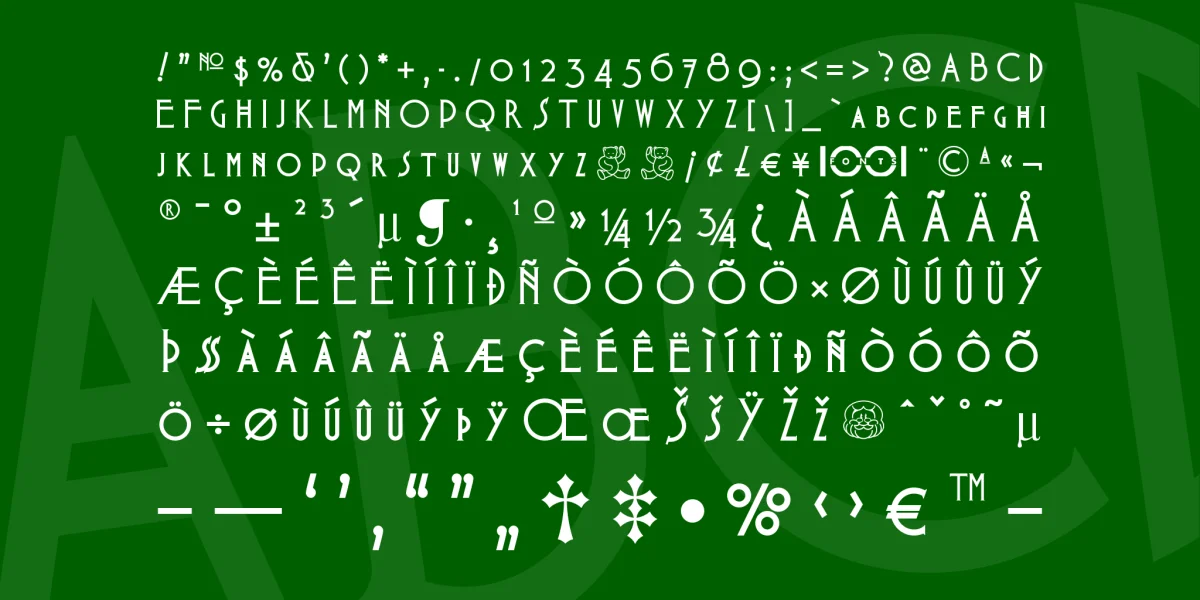
Handlettering on a piece of sheet music from 1903 was the inspiration for this little whimsical wonder. The font features a very sinuous S and teddy-bear bookends in the {brace} positions.